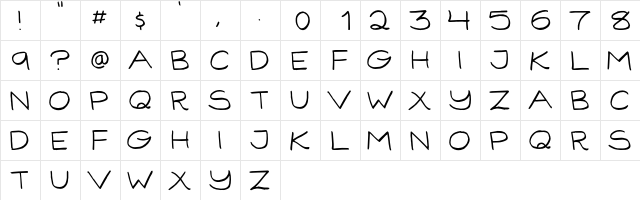
Gorilla Comix Regular
| Foundry | Skyhaven |
| Designer | =^_^= |
Design Context for Gorilla Comix Typeface
Gorilla Comix is a composed and adaptable typeface that performs quietly and consistently across a wide range of design contexts.